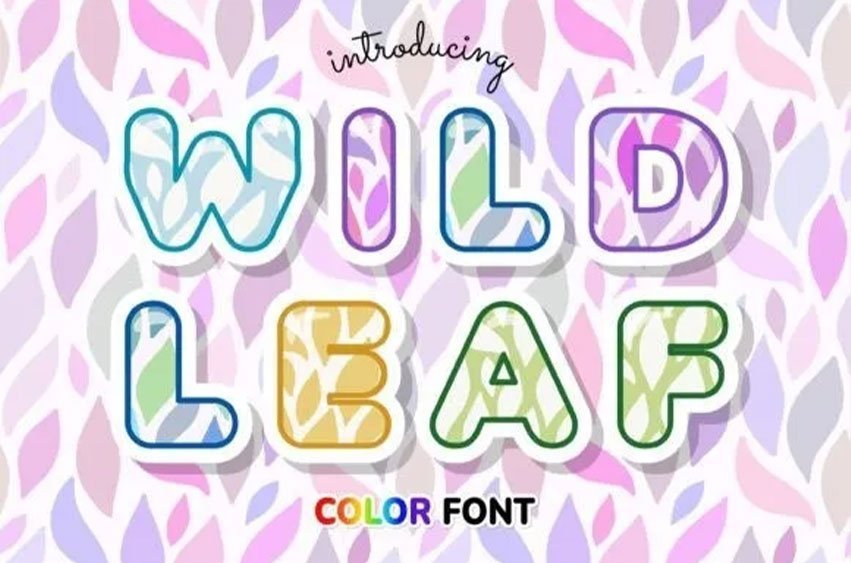
Wild Leaf Font is an incredibly cool color font designed in the style of Petal Pattern. Whether you use it for custom designs, DIY crafts, or just any creation that requires a lovely touch, this font will be an amazing choice.